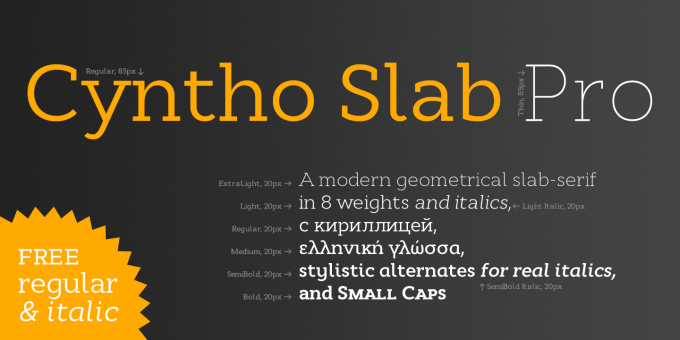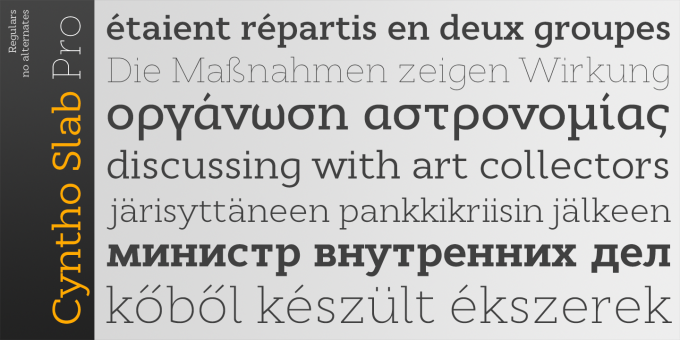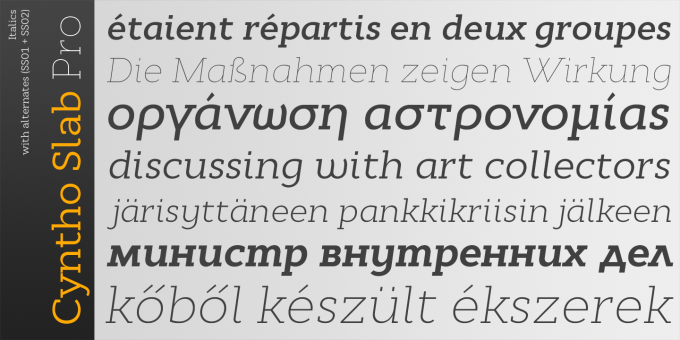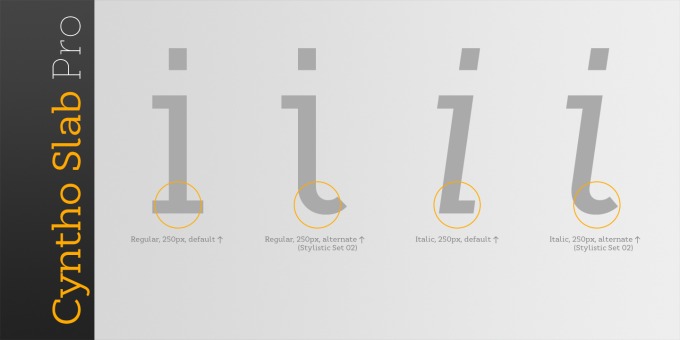
Cyntho Slab Pro
Cyntho Slab Pro is the slab serif companion to Cyntho Pro. It’s a modern geometric slab serif with extensive language support including Cyrillic and Greek scripts, rich with OpenType features, perfect for magazines, posters, advertising, corporate identity, and much more.
It offers optional upright and real italic forms, wrapped in OpenType ‘stylistic alternates’ features, or stylistic set #02, where sets can be applied separately. Small caps are included as well.